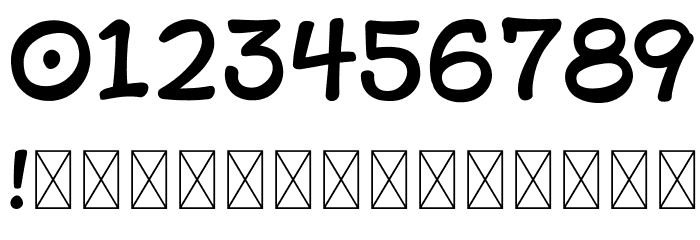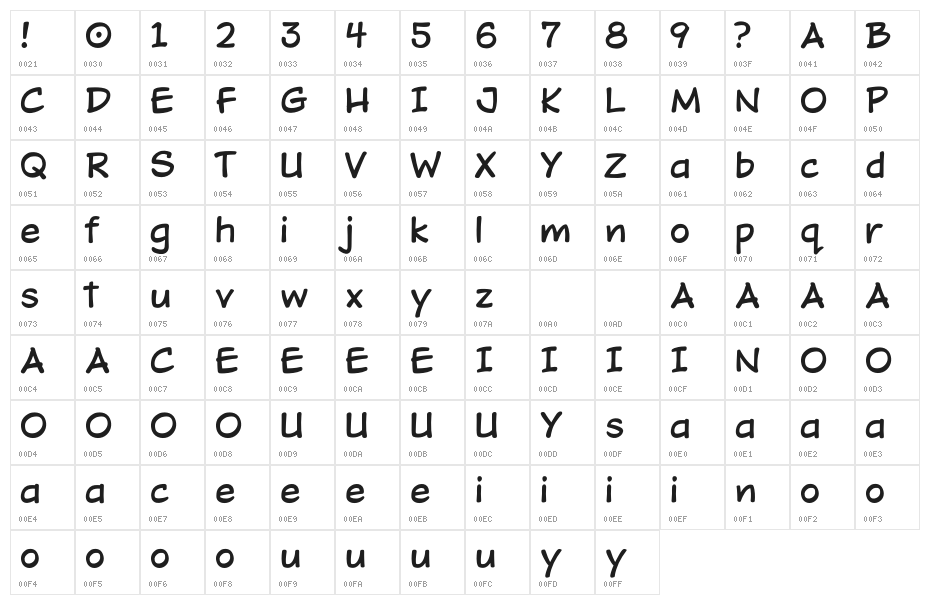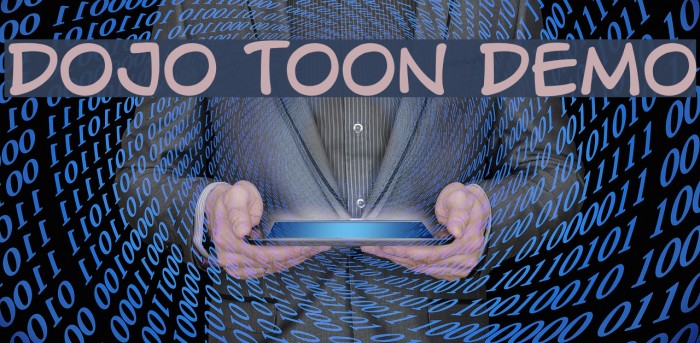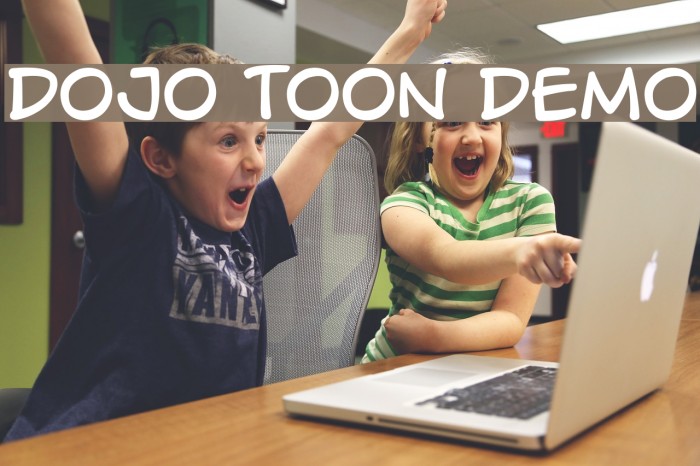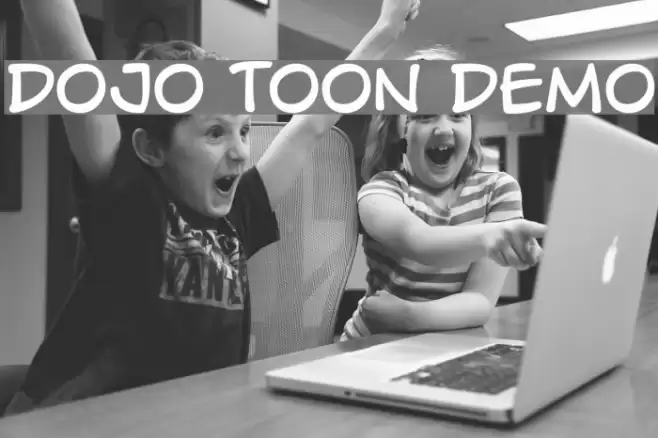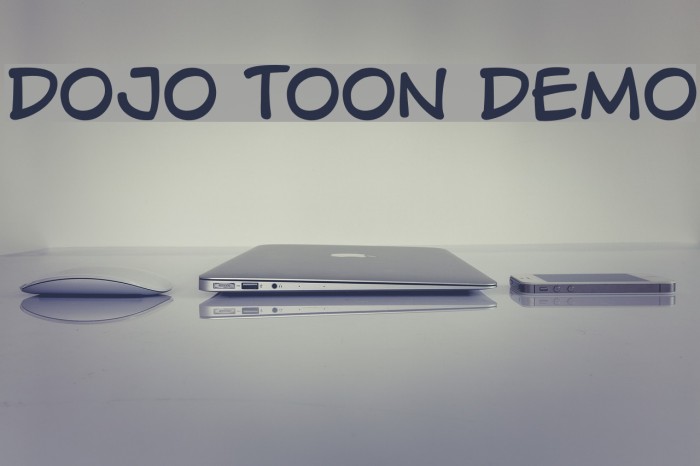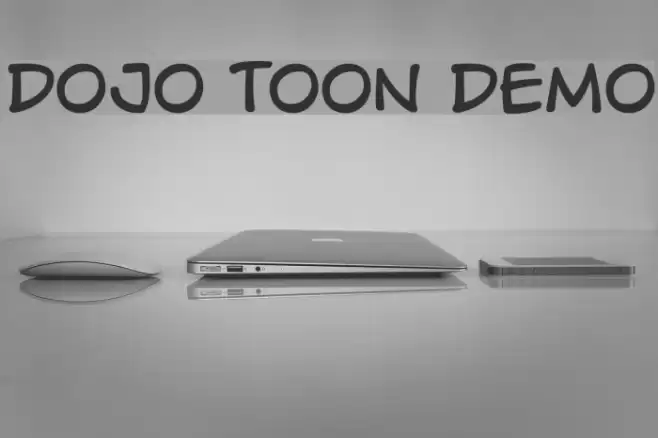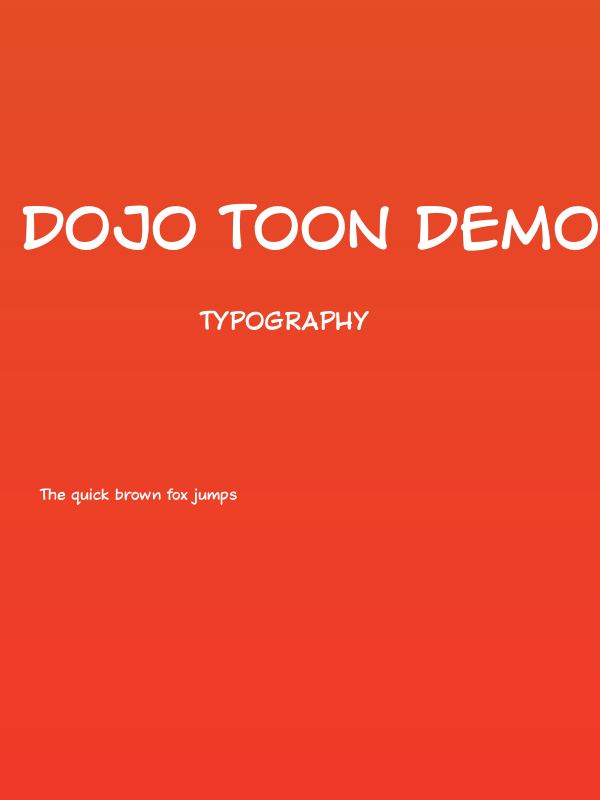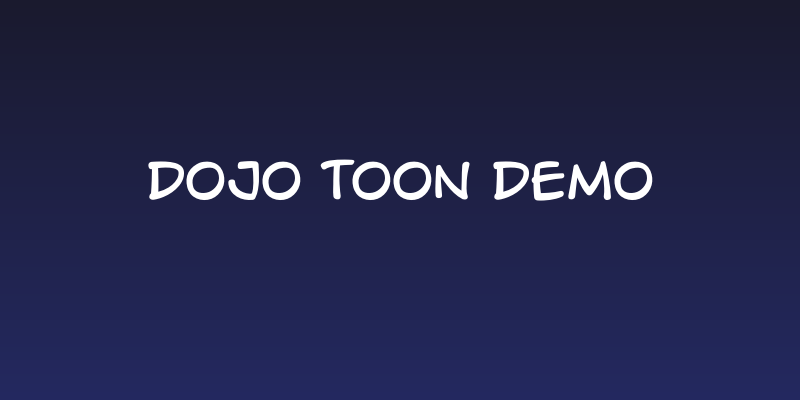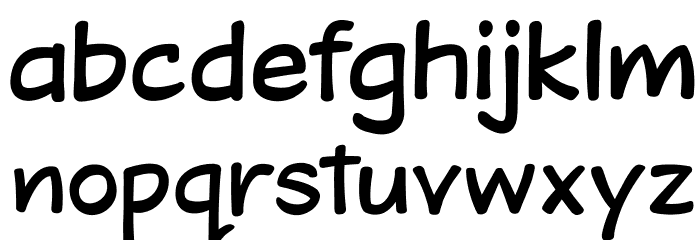
DOJO TOON DEMO Font
DOJO TOON DEMO Description
This playful and bold font features a handwritten style with rounded edges and a casual, friendly appearance. The characters are slightly irregular, adding a whimsical touch that makes it ideal for informal and creative projects. The uppercase and lowercase letters maintain a consistent style, with a slight slant that gives a dynamic feel. Numbers and special characters are designed to match the overall playful aesthetic, ensuring a cohesive look across all text elements. The font's thick strokes and rounded forms make it highly legible, even at smaller sizes, while its unique character shapes add personality and charm.
Overall StylePlayful
Use CaseHeadlines, Logos, Creative projects
Proposed ProjectsIdeal for children's books, comic strips, playful branding, and creative posters.